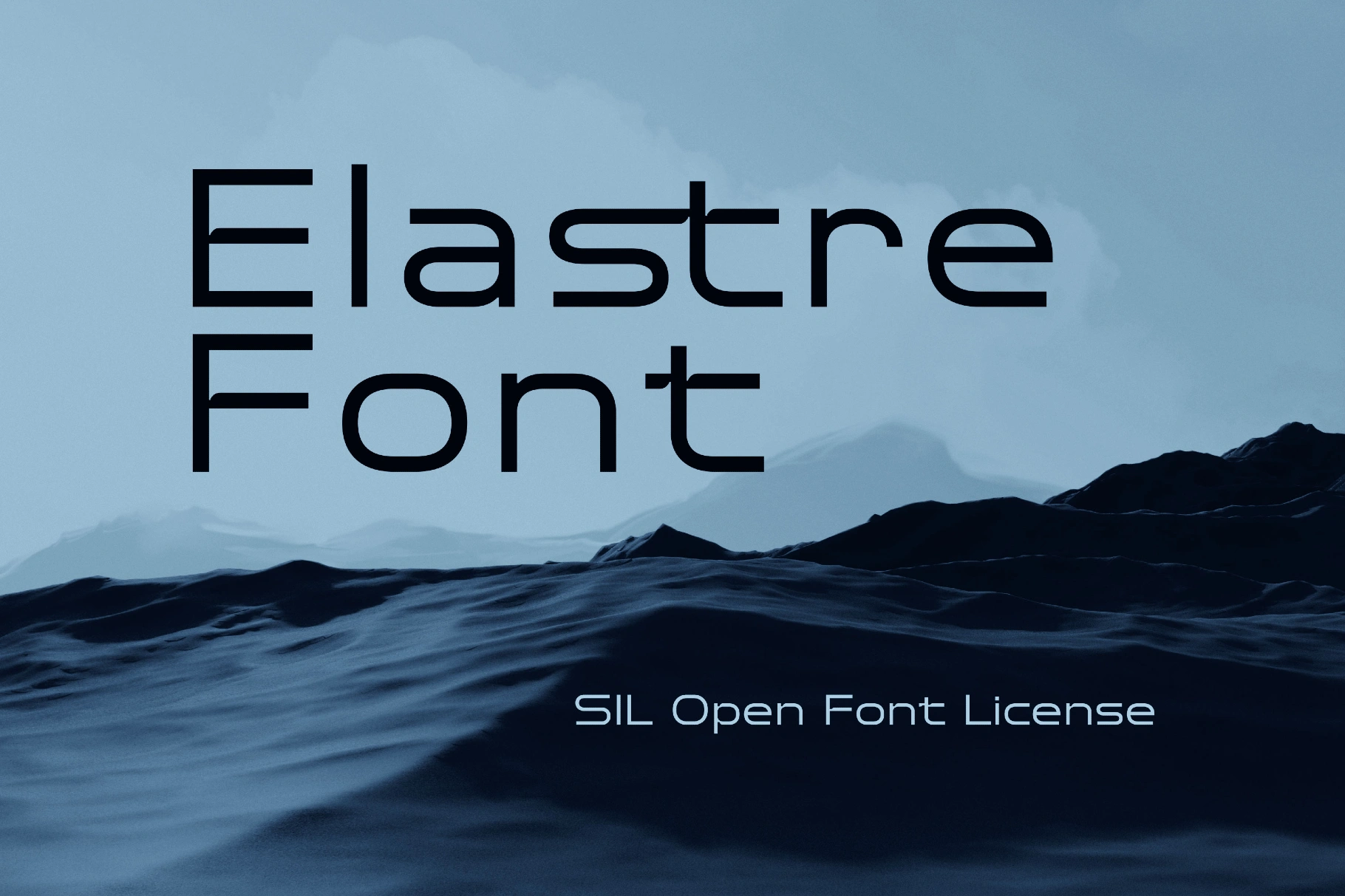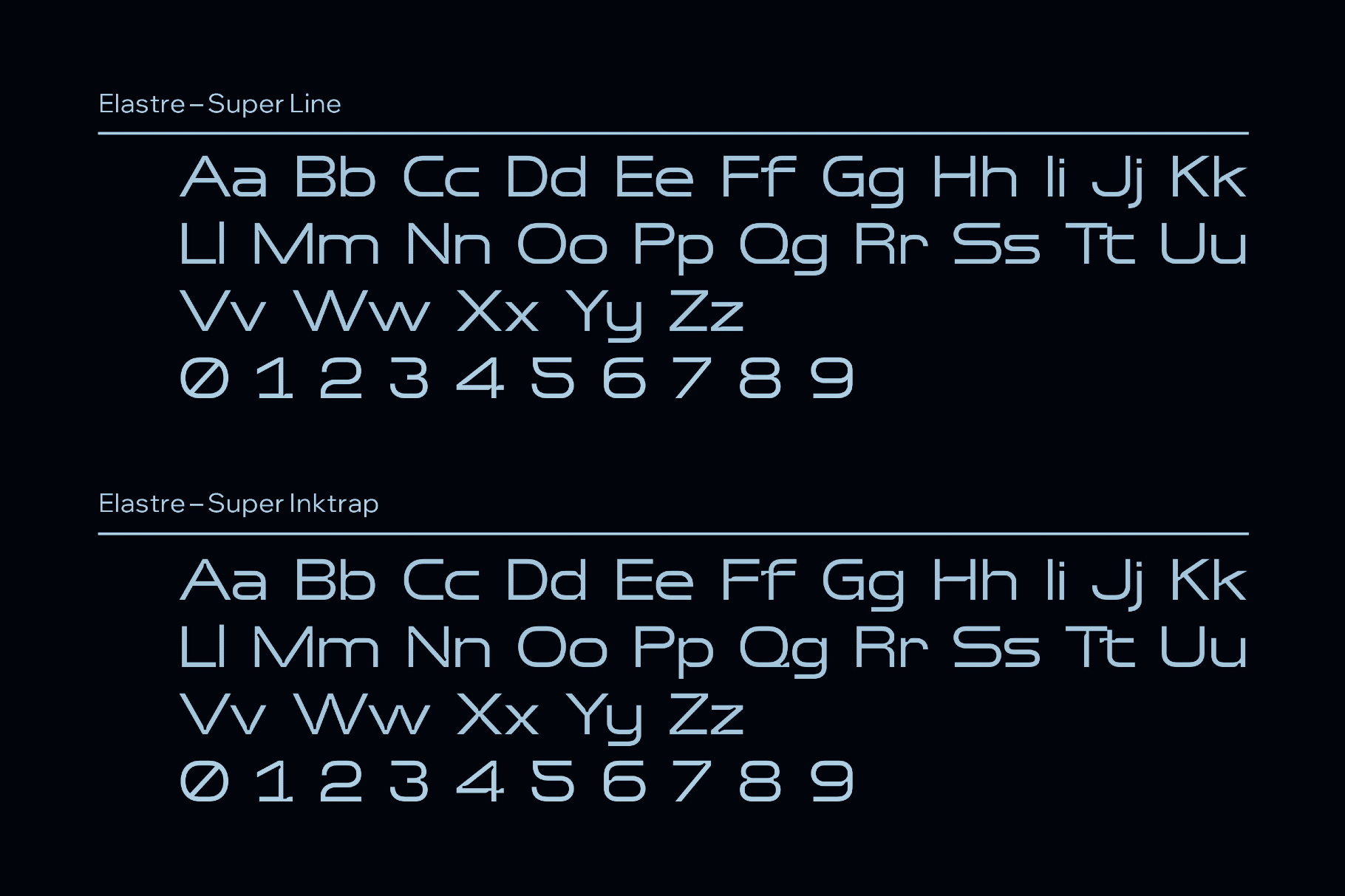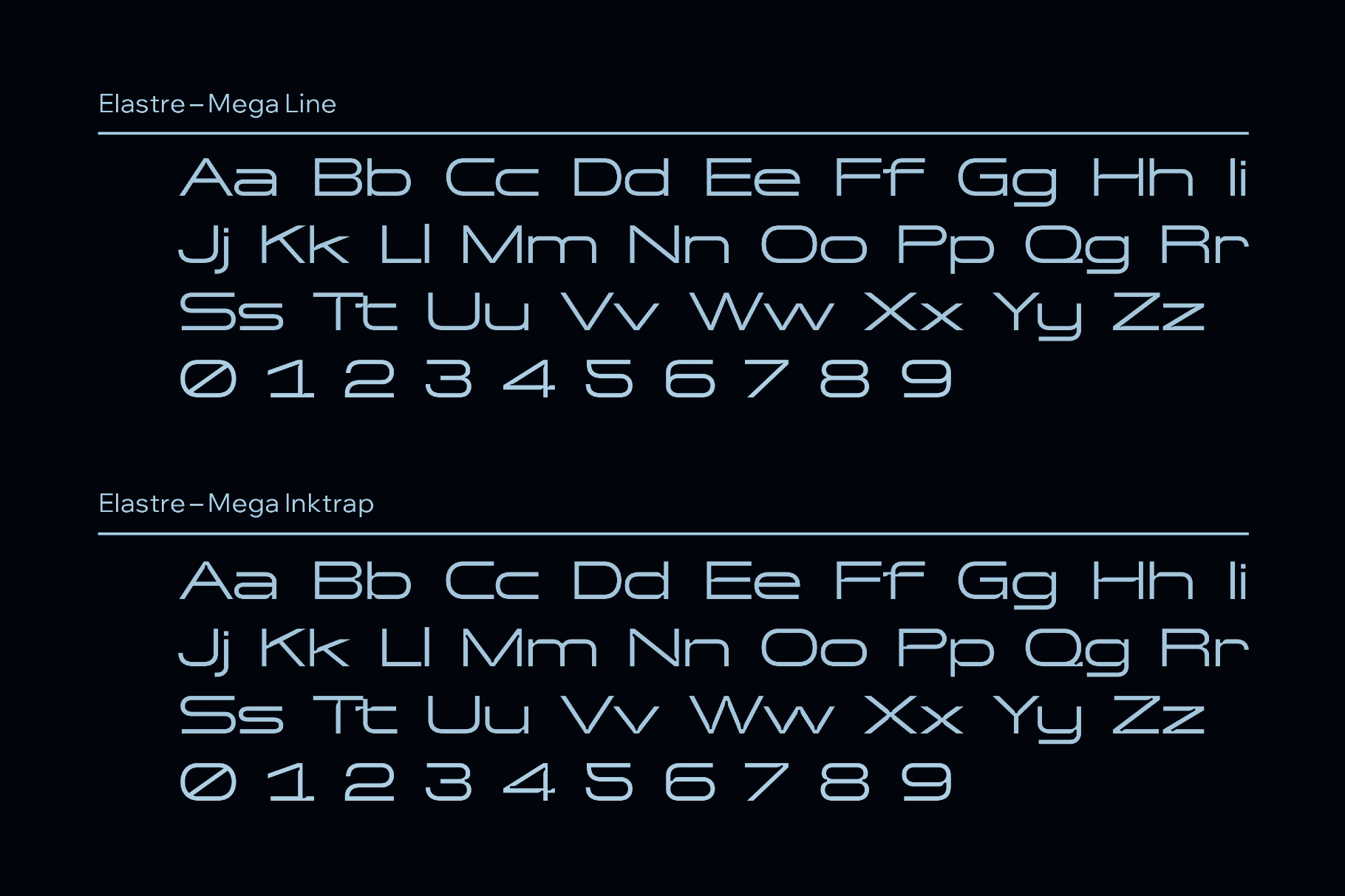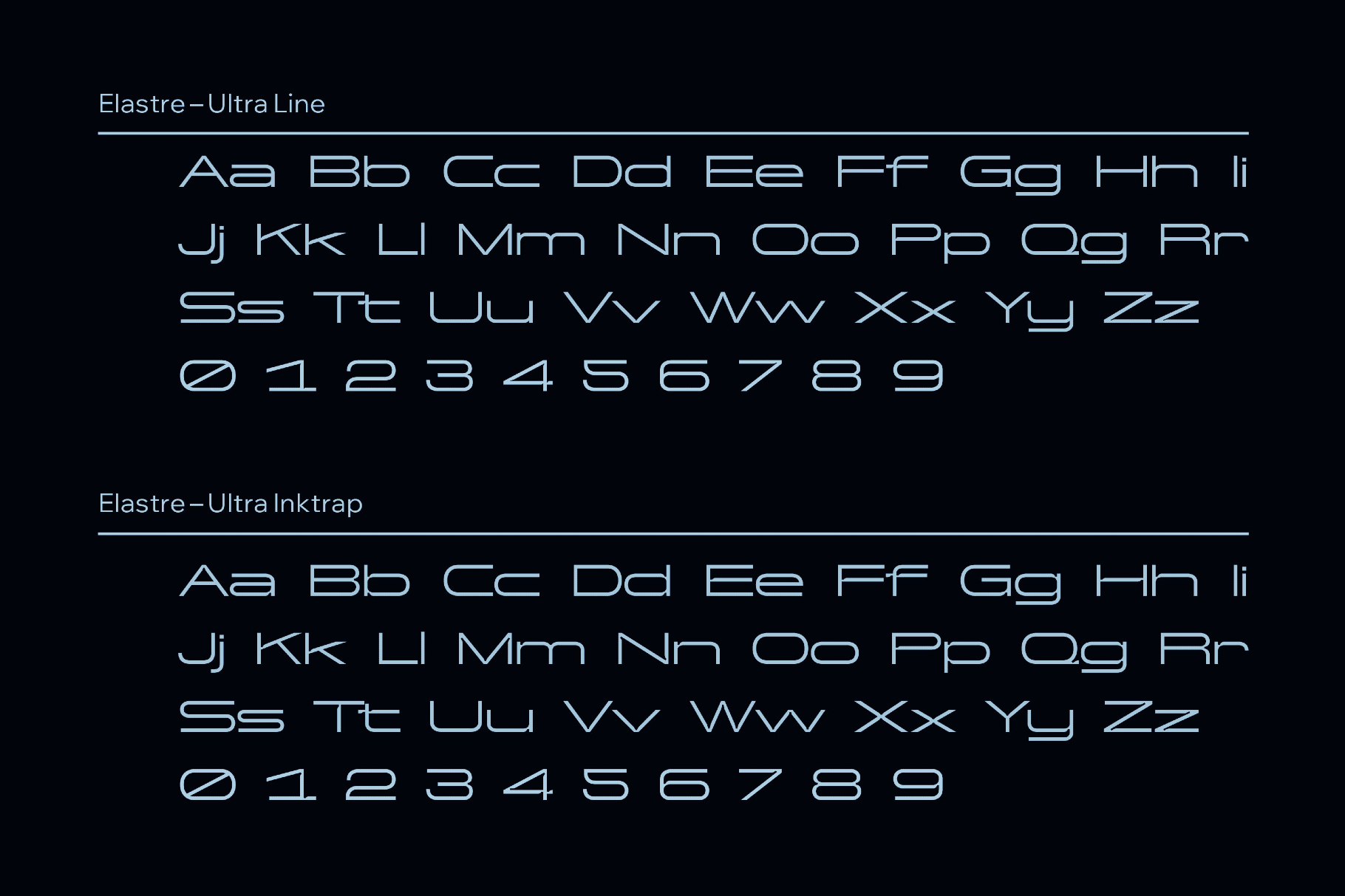
Elastre Font
Elastre
Elastre draws on early-2000s electronics ads, when everything looked futuristic, with glossy glow and screens constantly promising a smarter tomorrow. Chunky letterforms and rounded curves work well for music artwork, poster headlines, tech branding, packaging, motion titles, editorial covers, fashion visuals, and game-related design.